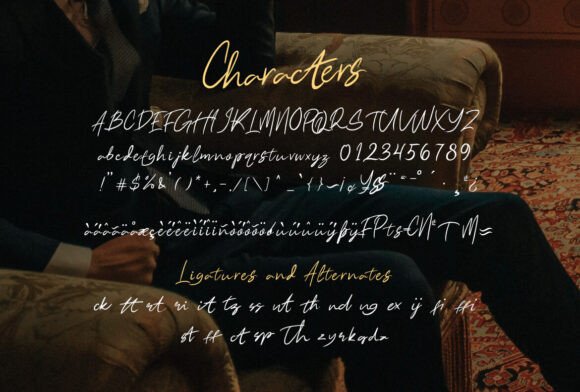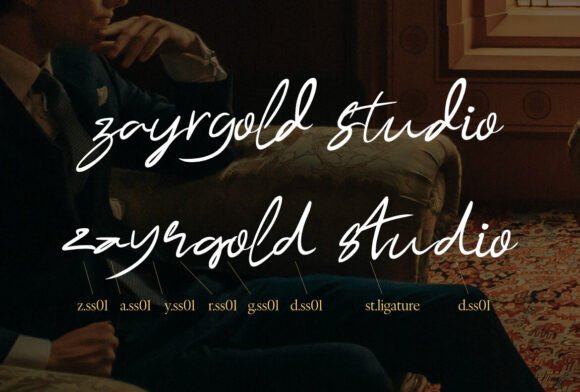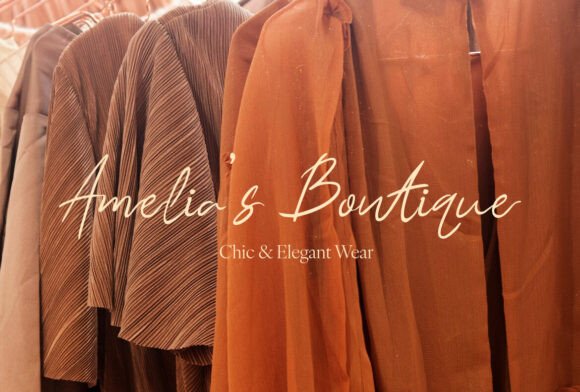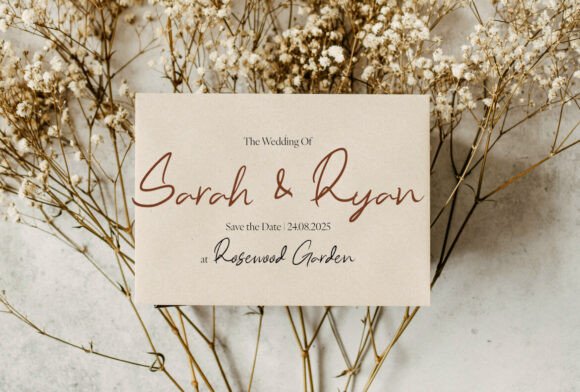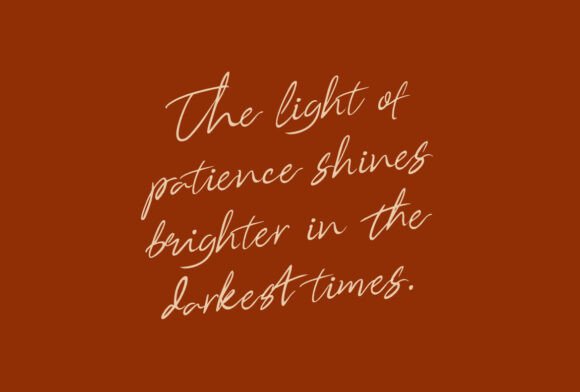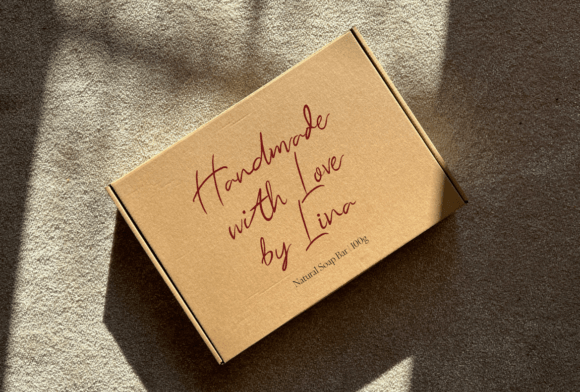
Introducing Adipati Pena: The Elegant Handwritten Script Font for Creative Designs
Are you searching for a font that embodies elegance and sophistication for your designs? Look no further than Adipati Pena, a stylish handwritten script font that brings a personal and chic aesthetic to your creative projects. With its breezy strokes and organic curves, Adipati Pena is the perfect choice for designers and crafters seeking to elevate their branding creations, wedding invitations, social media graphics, and more.
The Dream Teammate for Designers
Adipati Pena is more than just a font – it’s a design partner that helps you create stunning visual content. Its versatility is unmatched, making it suitable for a wide range of applications, from luxury branding to wedding planning, and social media graphics. Whether you’re a seasoned designer or a crafty DIY enthusiast, Adipati Pena is the ideal companion for your creative journey.
Unleashing Creative Possibilities with Adipati Pena
One of the standout features of Adipati Pena is its option-rich nature. The font boasts ligatures, stylistic alternates, and multilingual support, making it an excellent choice for designers working on global projects. With Adipati Pena, you can create designs that cater to diverse audiences and bridge communication gaps. The font’s extensive feature set includes:
- Uppercase and lowercase characters
- Numbers and punctuation
- Ligatures and stylistic alternates
- Multilingual support
This comprehensive feature set allows you to craft articulate, visual poetry that engages and resonates with your audience.
Design Applications for Adipati Pena
Adipati Pena is an incredibly versatile font, suitable for a wide range of design applications, including:
- Branding and logo design
- Packaging design and labels
Whether you’re working on a personal project or a client’s brief, Adipati Pena is the perfect choice for adding a touch of elegance and sophistication.
| Font Name | Adipati Pena Font |
| Author | guramevisual |
Adipati Pena is a stylish handwritten script font that brings elegance and sophistication to your designs. With its extensive feature set, versatility, and seamless accessibility, it’s the perfect choice for designers and crafters seeking to elevate their creative projects. Whether you’re working on branding, wedding invitations, or social media graphics, Adipati Pena is the ideal companion for your design journey.